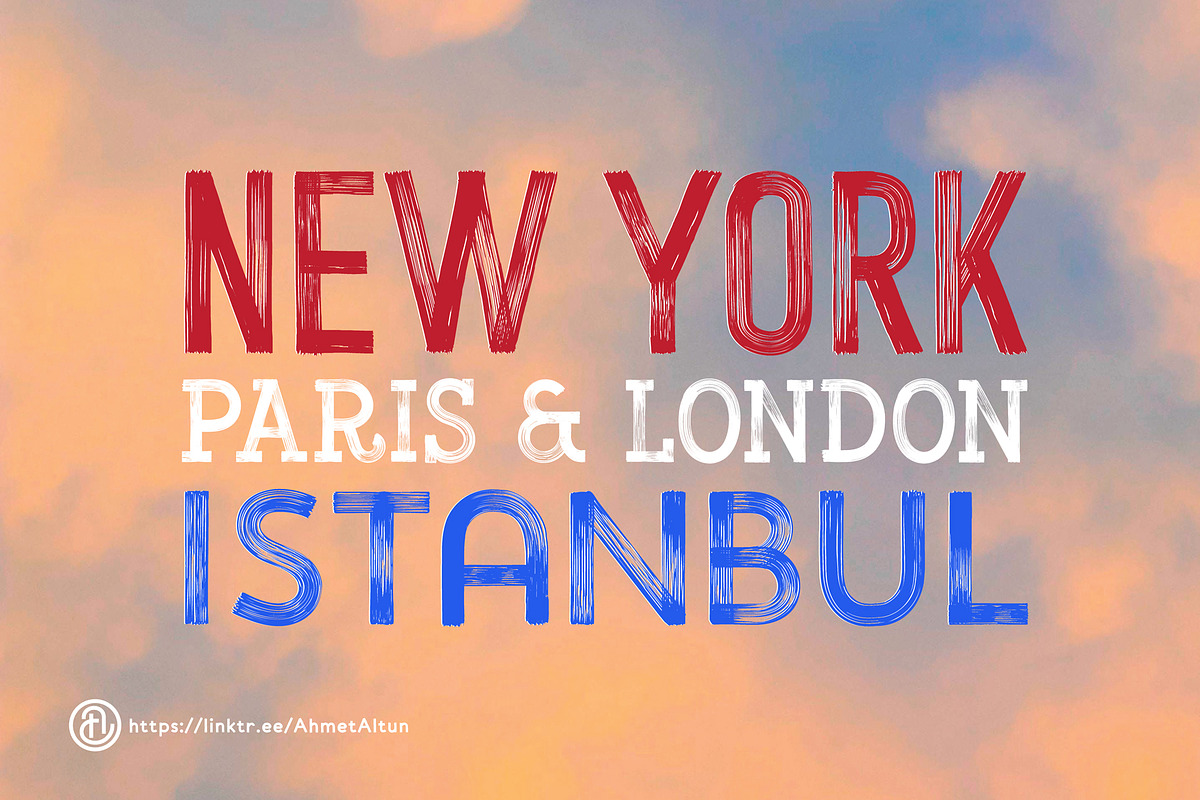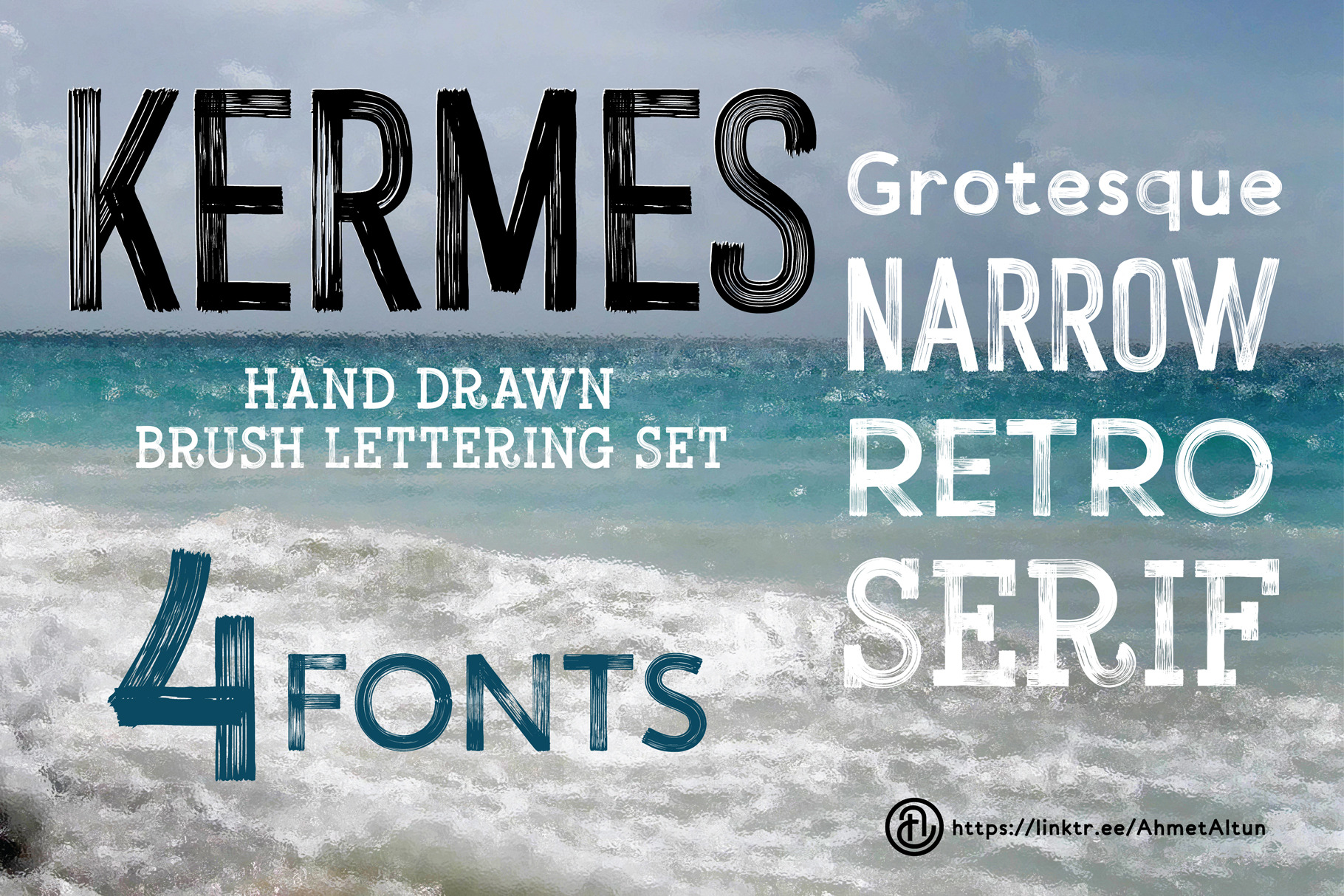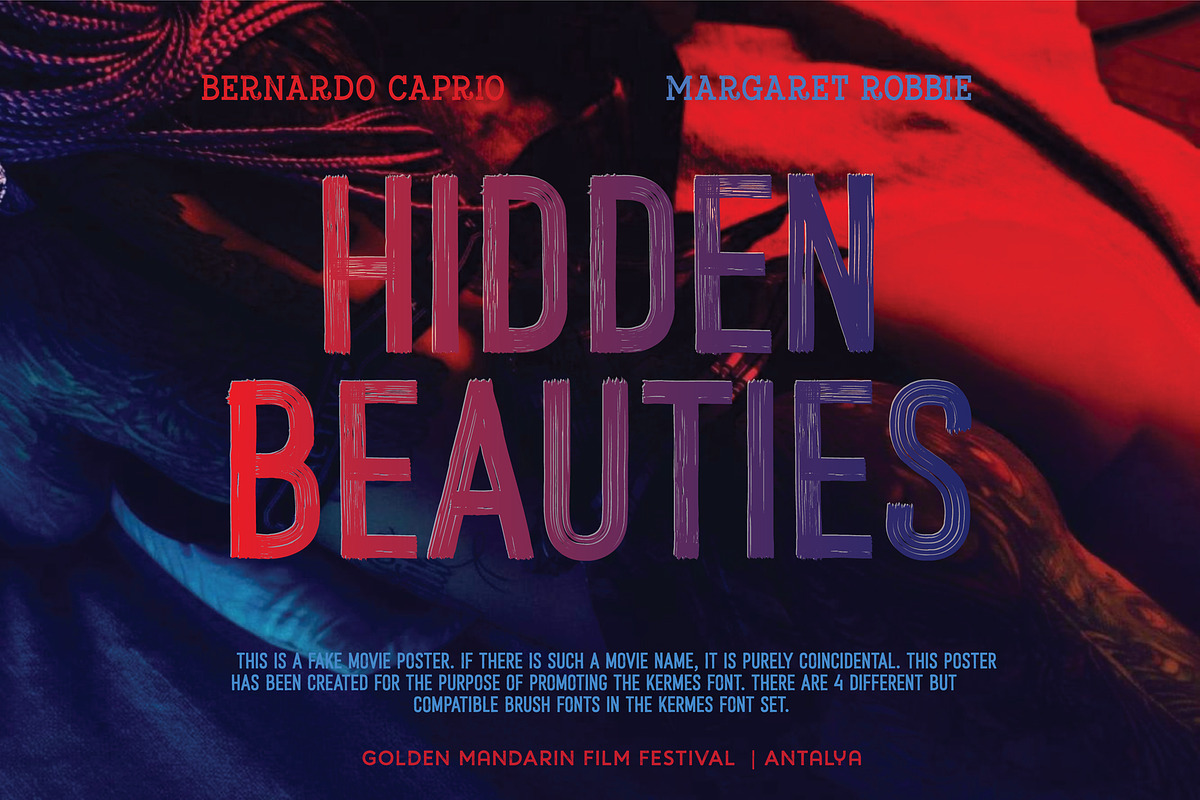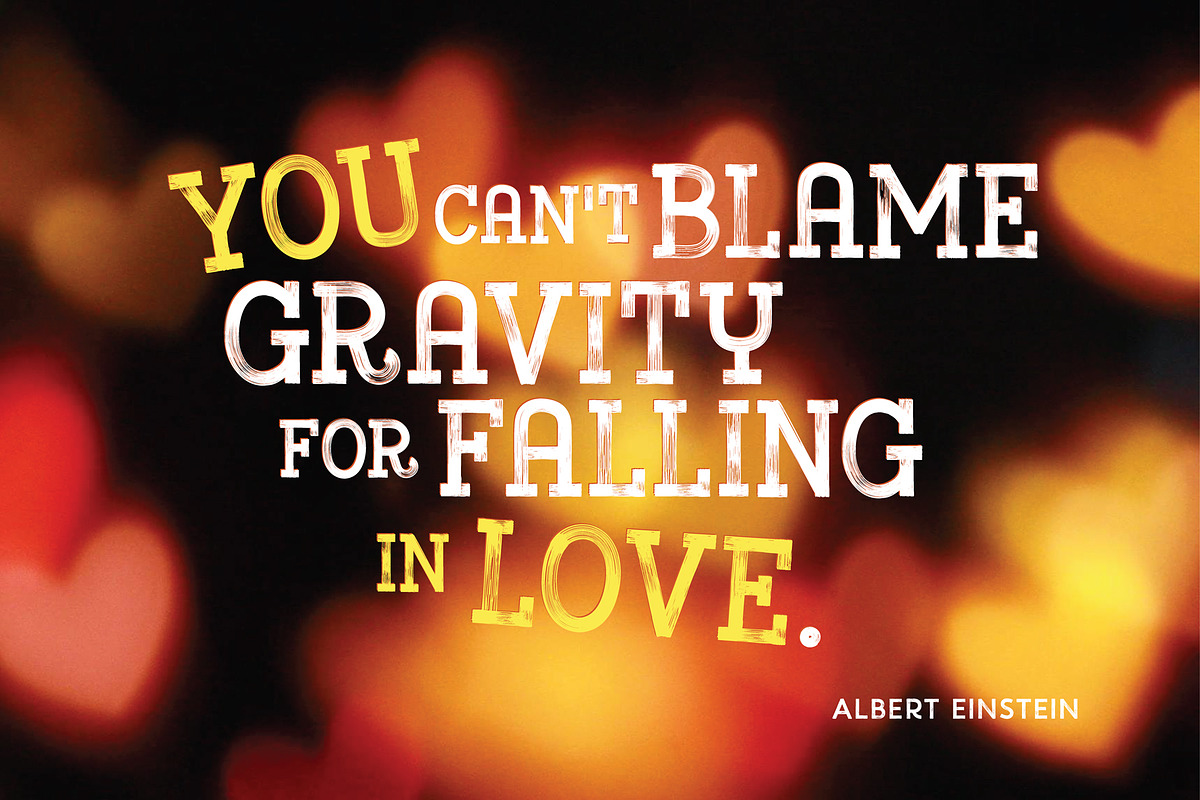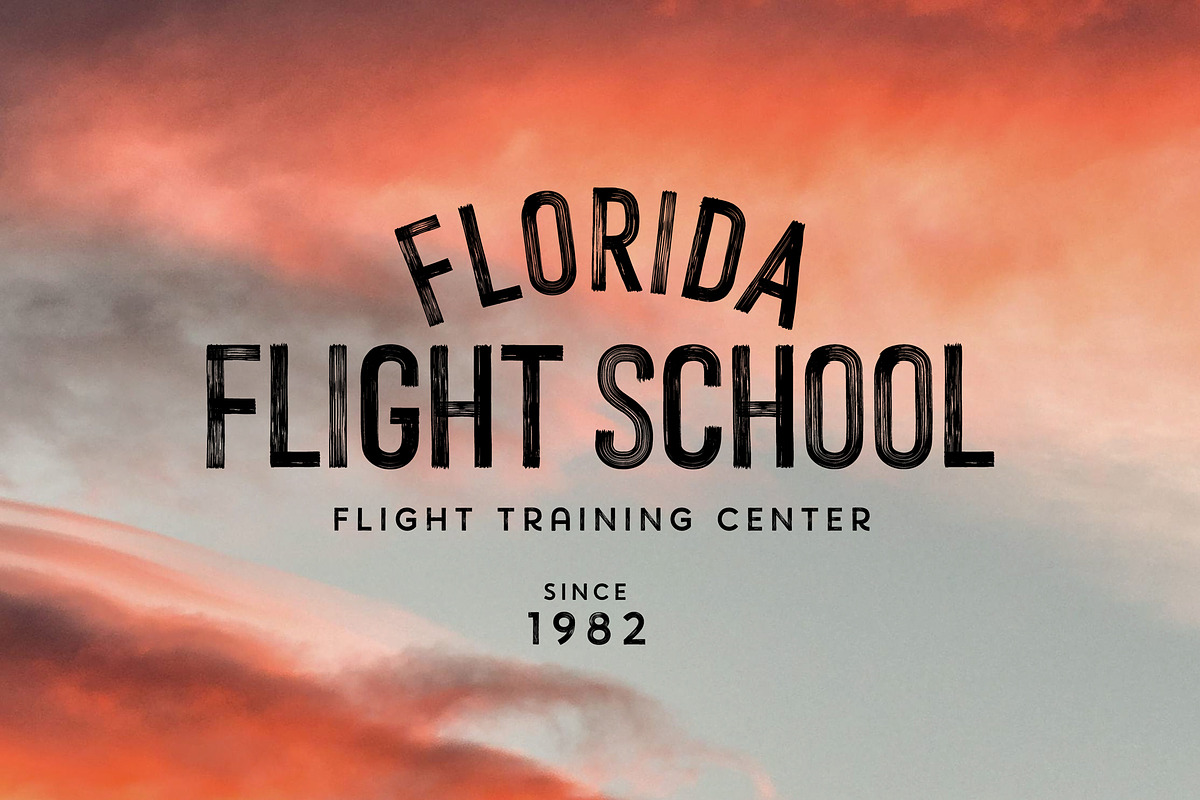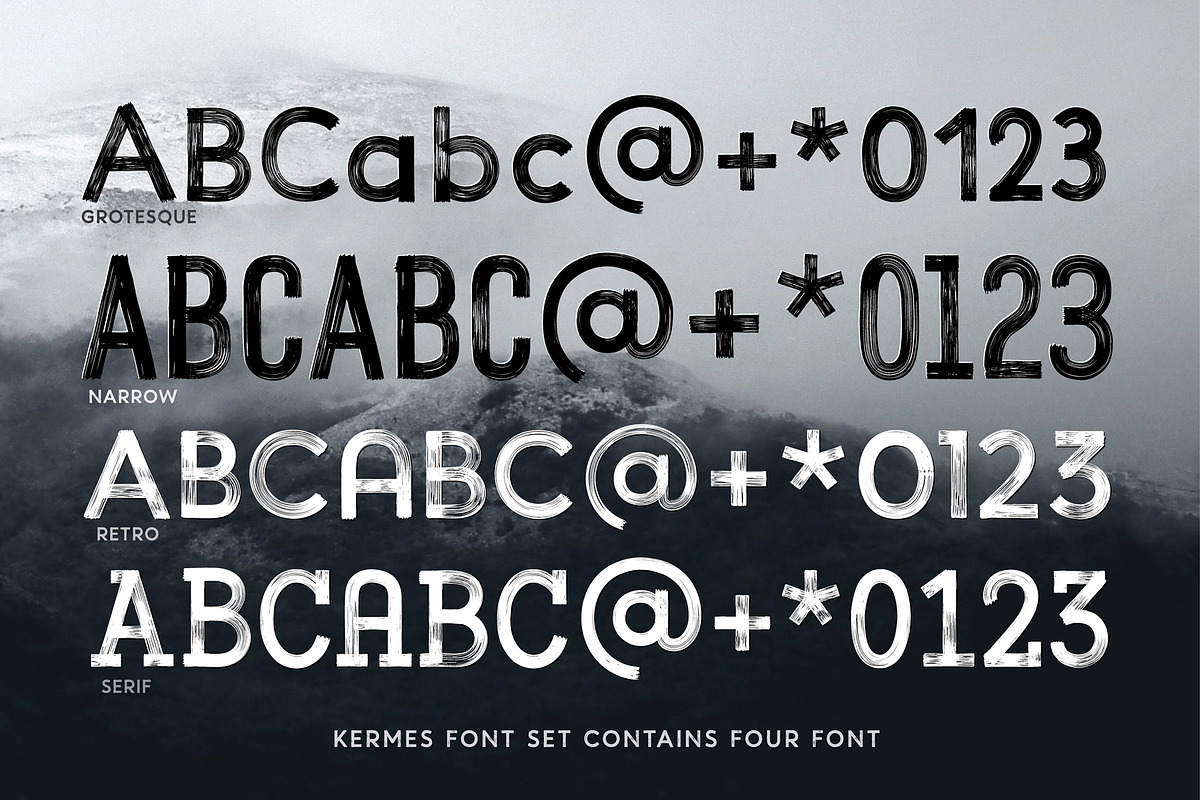
Kermes Brush Font Set
To create the Kermes fonts, hundreds of traces of different sizes were created with acrylic paints and brushes, and then converted into vectors. With these brushes, natural character drawings were made by hand in the vector program and the created letters were transferred to the font program. Since they are created with the same brush collection, the four fonts are very harmonious, although in different styles. It can be a good font choice for posters, logos, promotions, printing and all kinds of screen works.